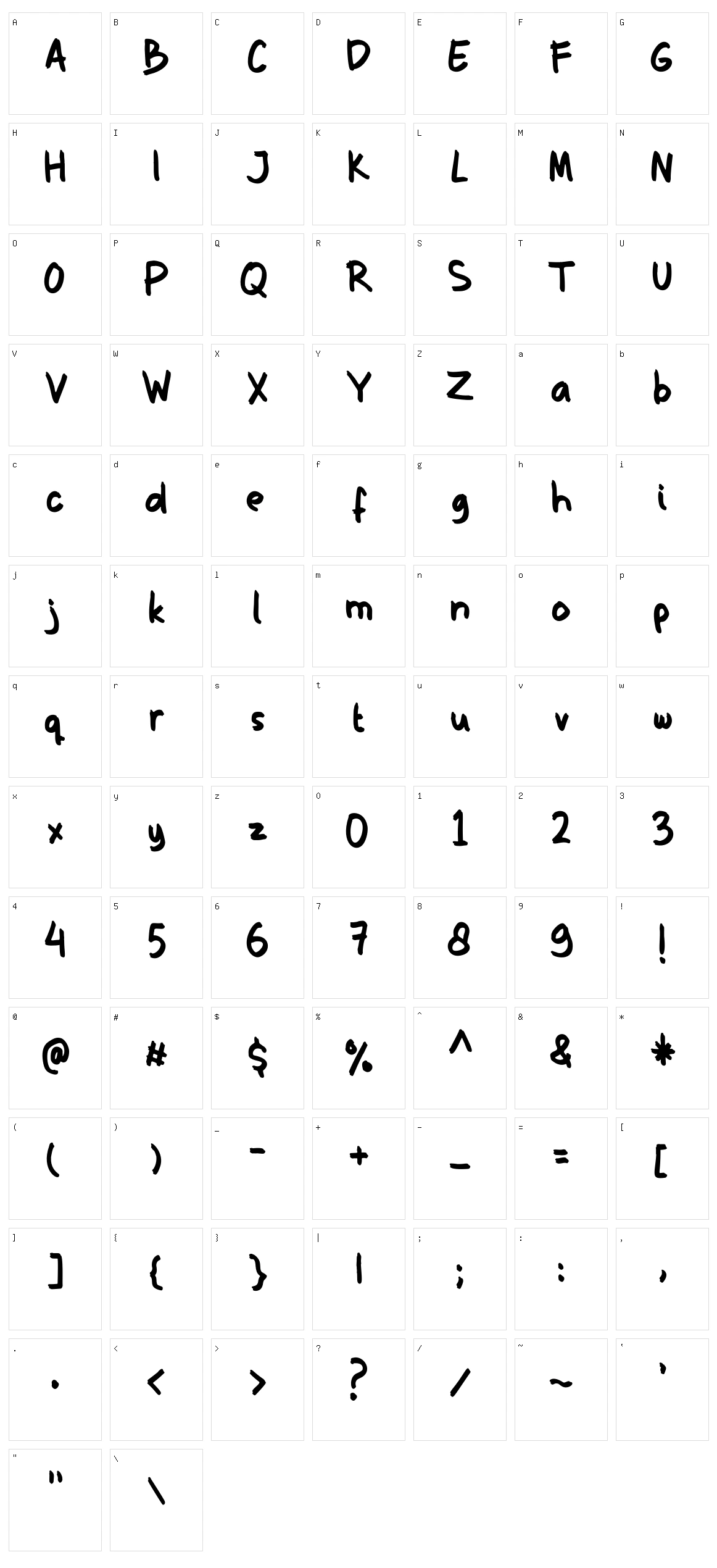
The free font Gosrokan is carefully designed by Mightyfire, showcasing a thoughtful balance of creativity and usability and falls under the Script font style. When you download the ZIP file, it contains only 35.6 KB of font files, making it lightweight and quick to download. Please review the license details below to understand permitted usage and distribution rights. If license information is not available, we recommend using this font for personal projects only or contacting the author directly for commercial usage permissions.